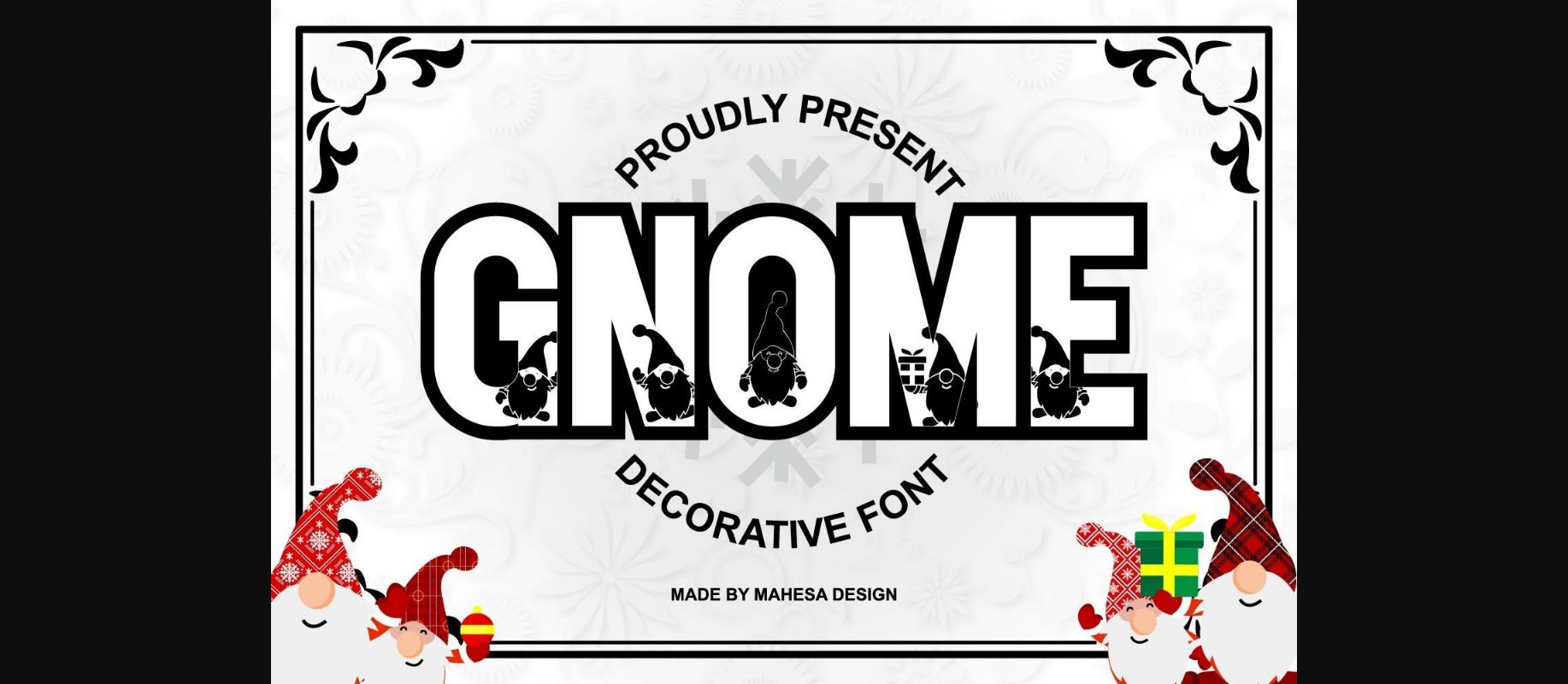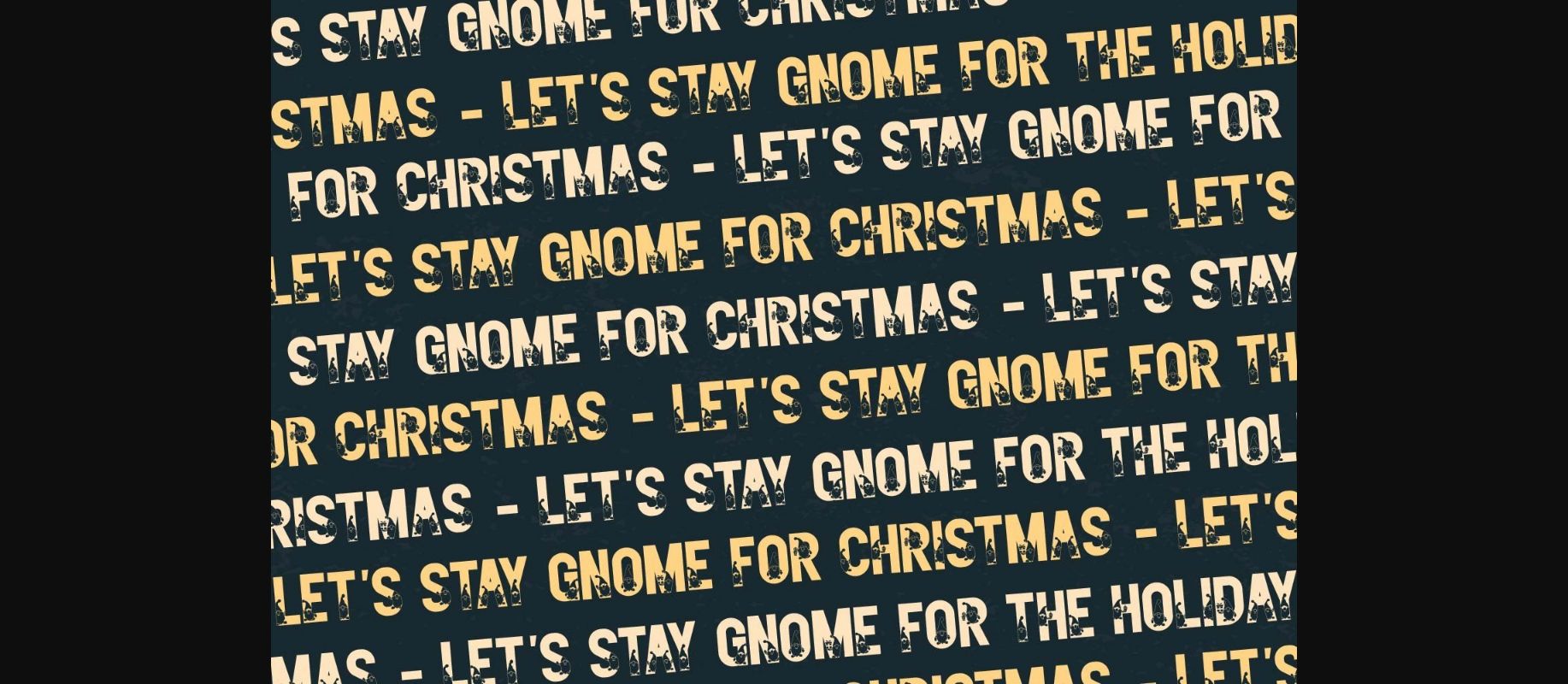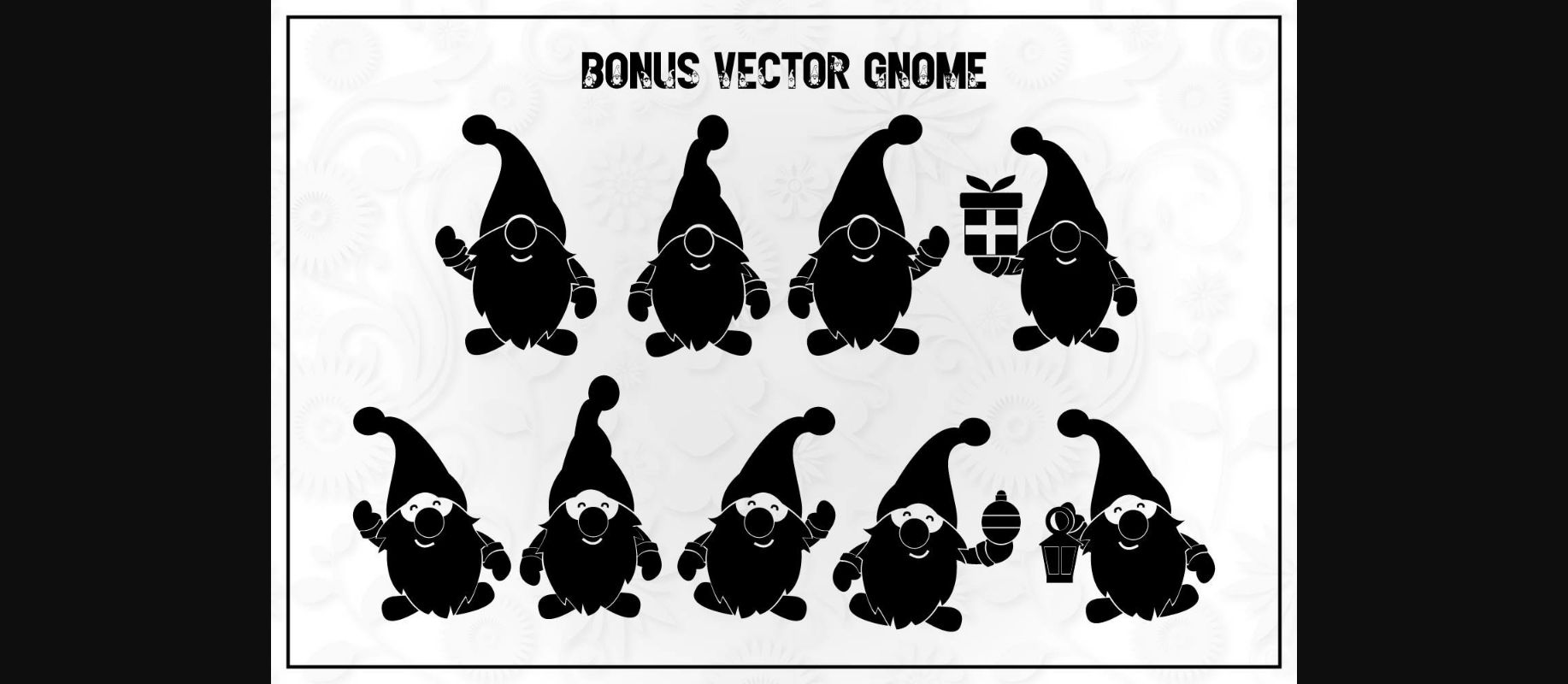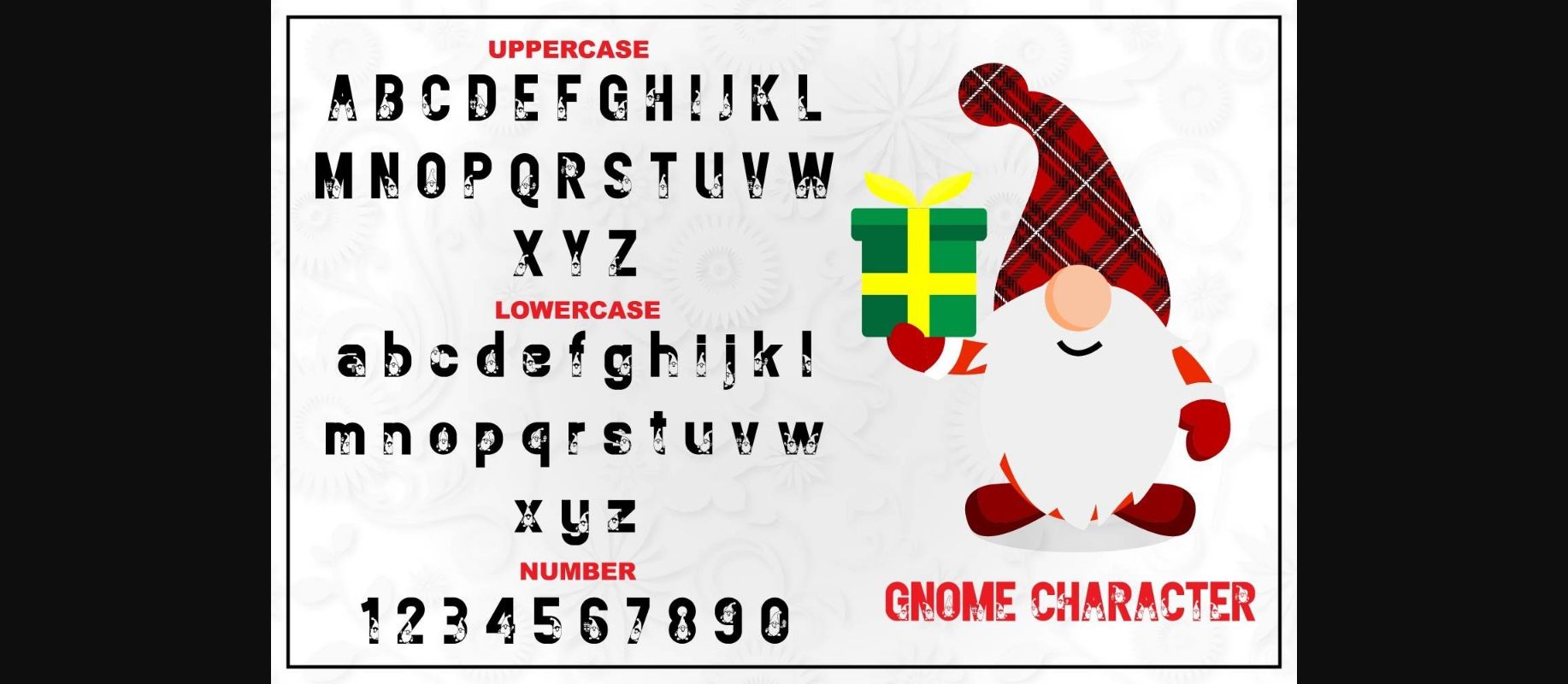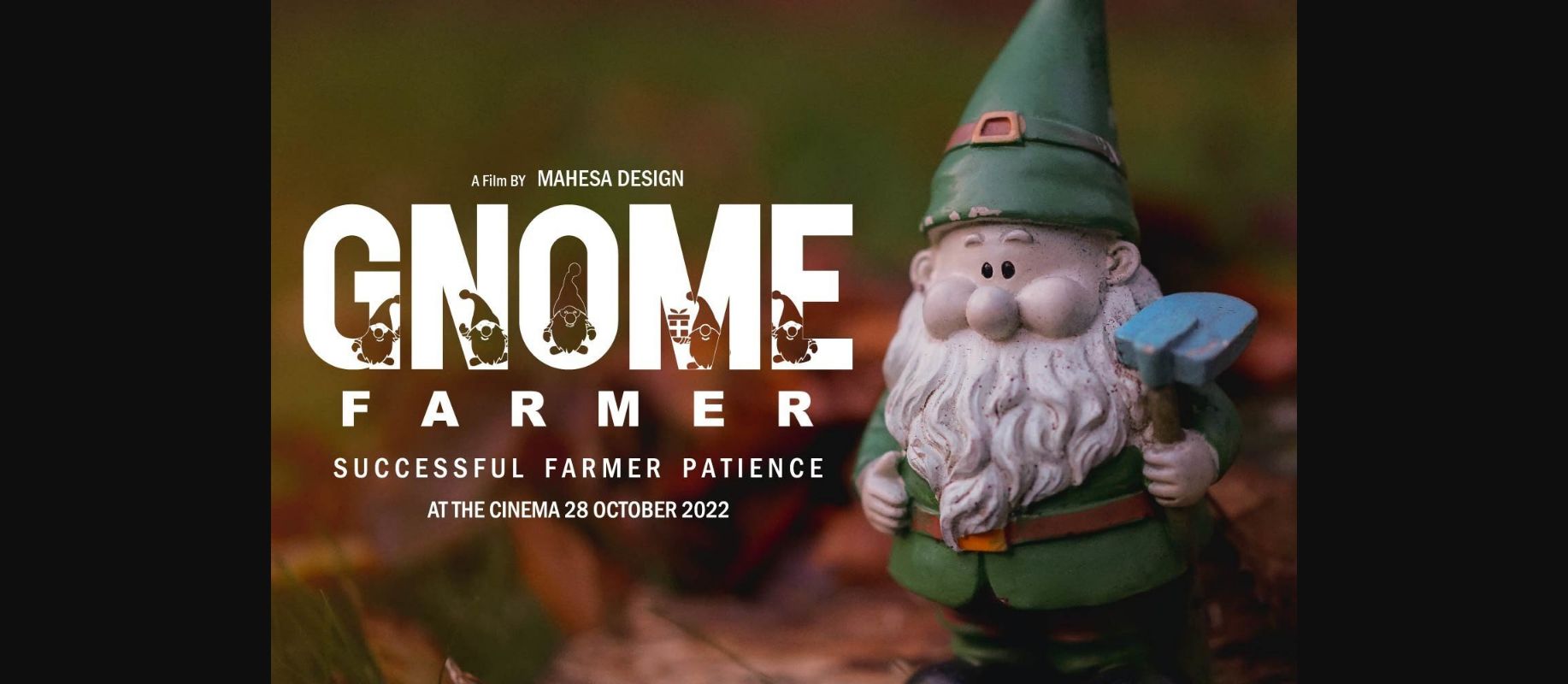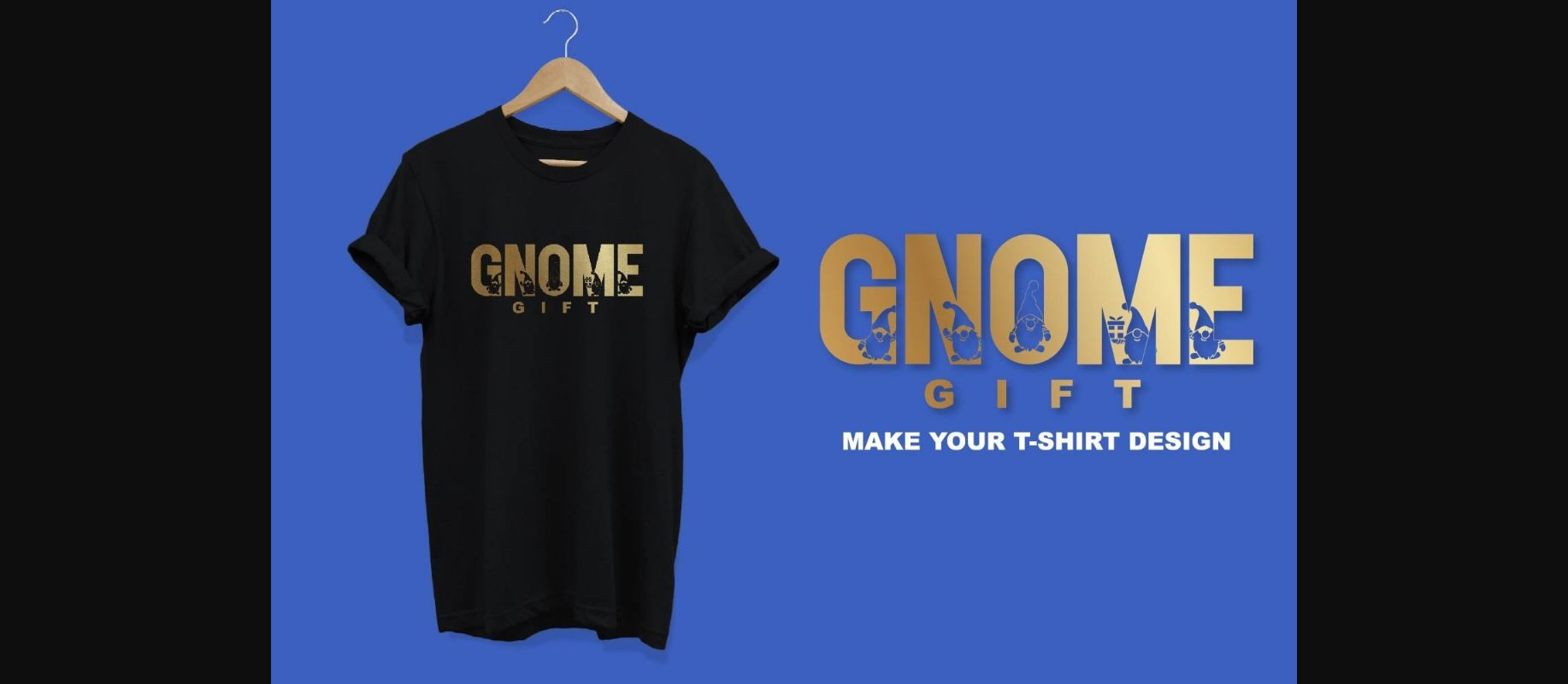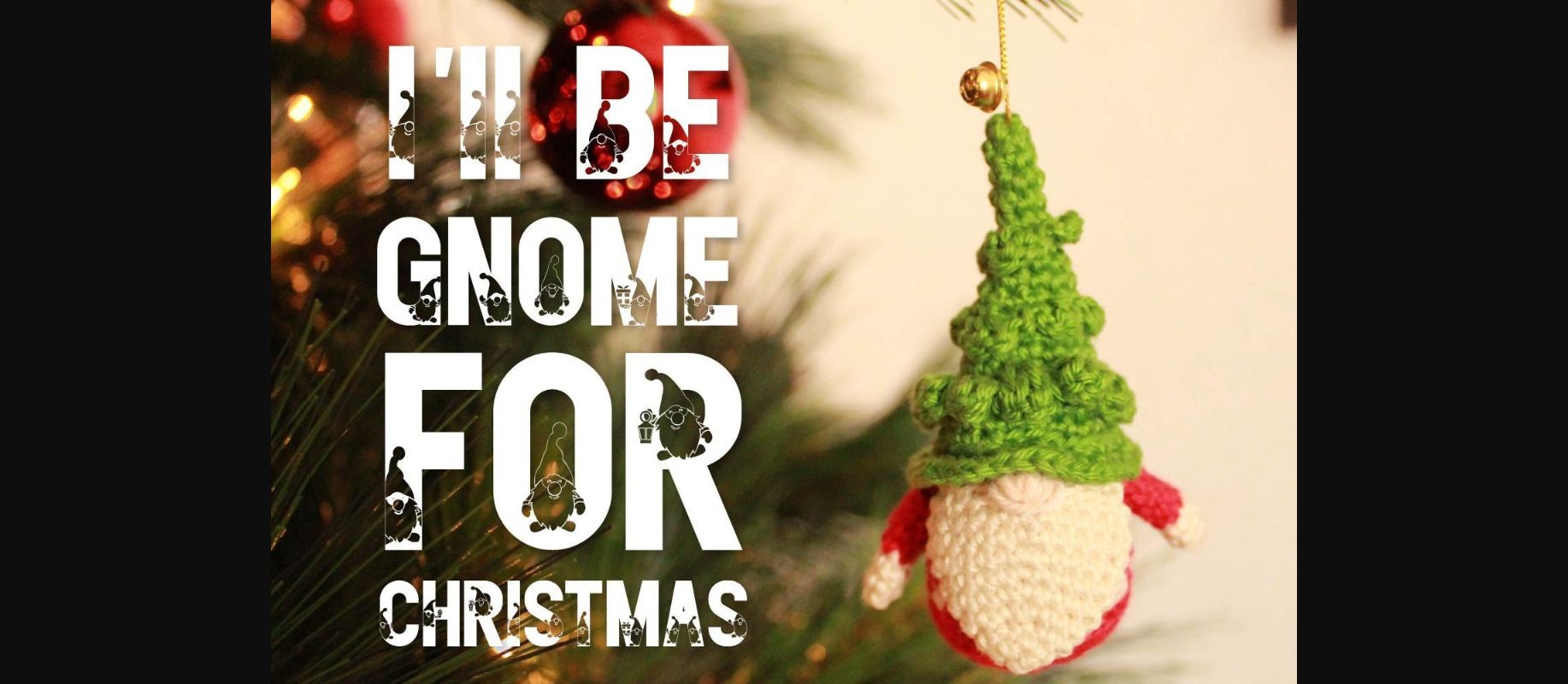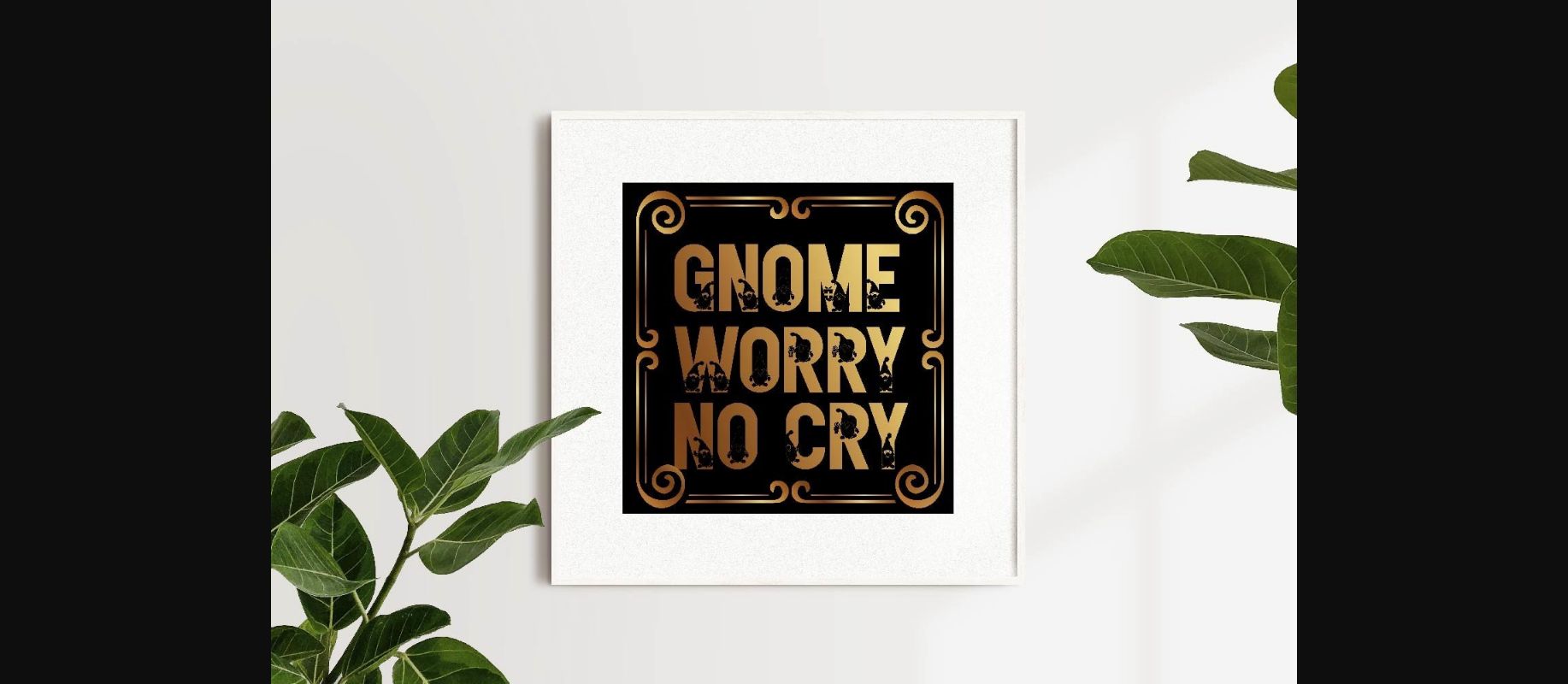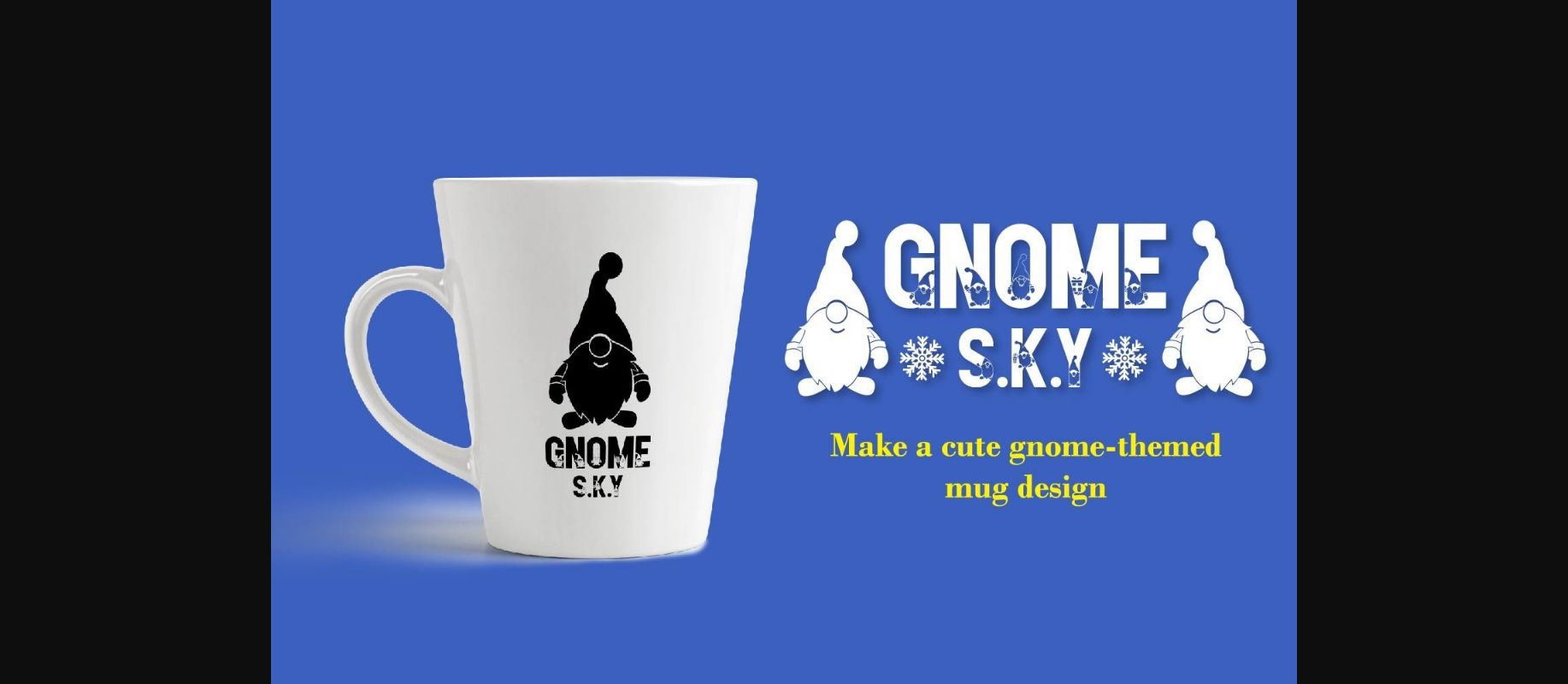
Gnome Font
About Gnome Font
Gnome is a cute, childish, and friendly decorative font. Each letter features a cute gnome. This font is perfect for kids-themed designs, t-shirts, mugs, or decorations. This fun typeface can also be used to prepare for this year’s Christmas event.